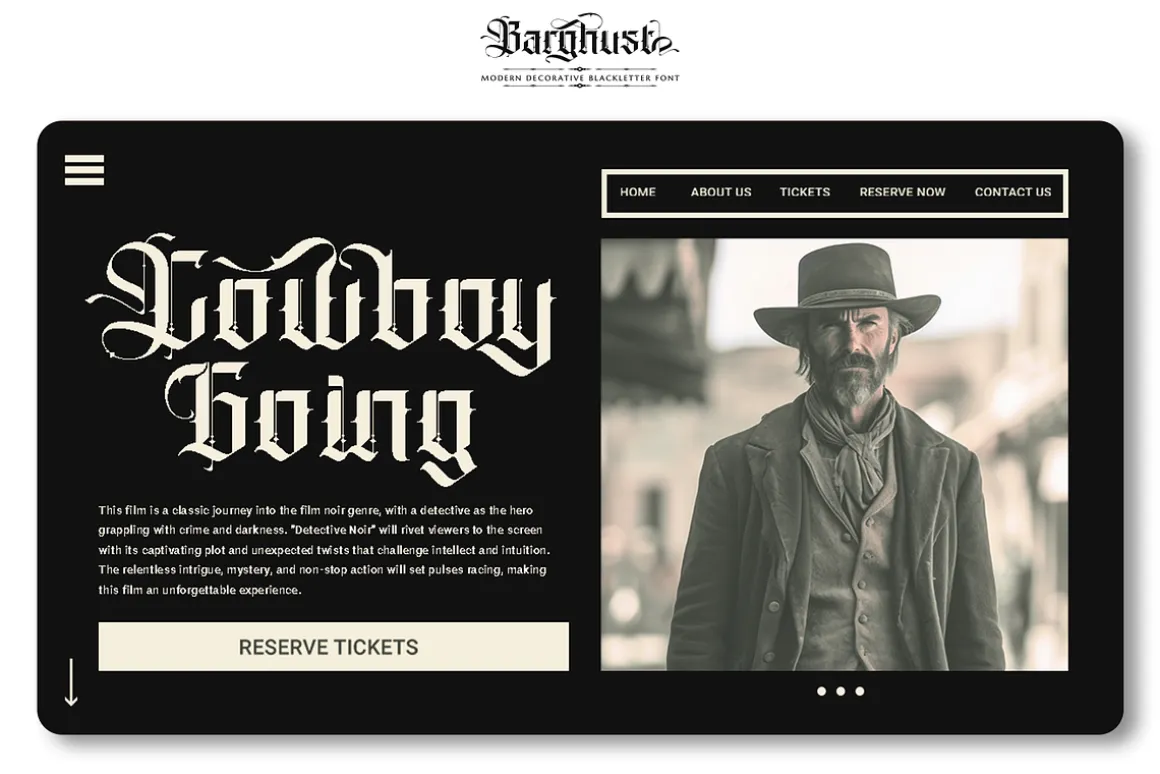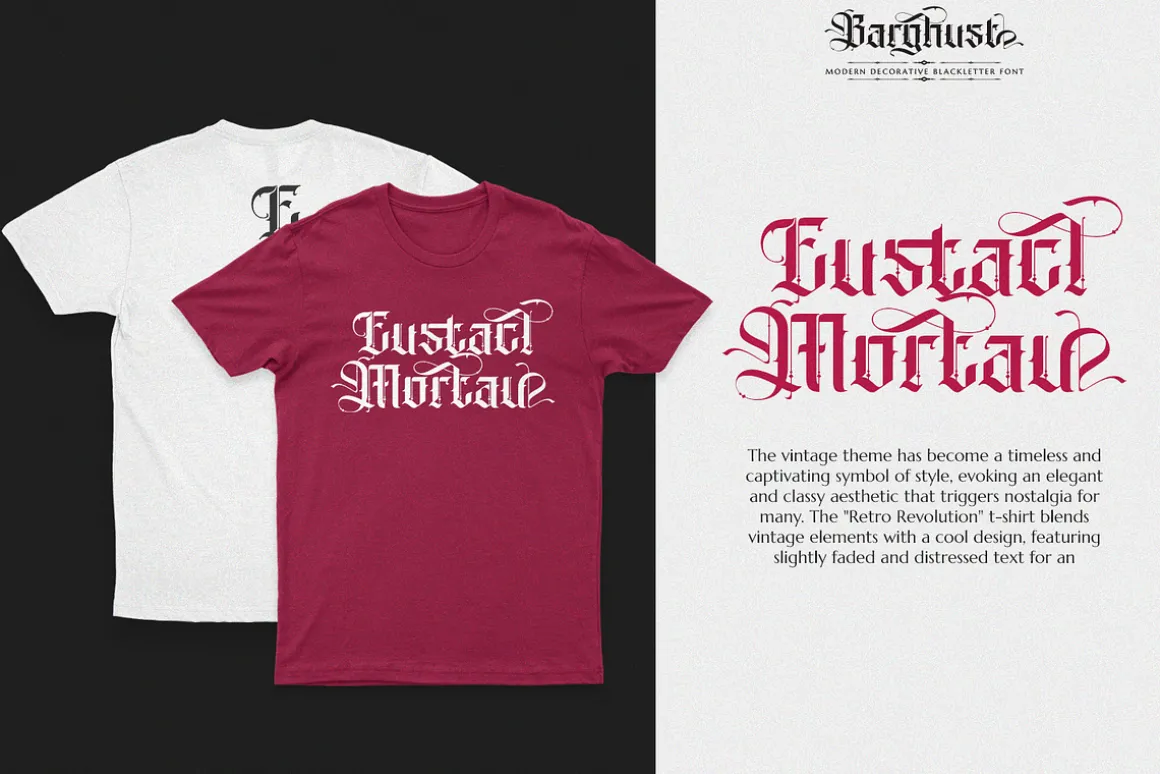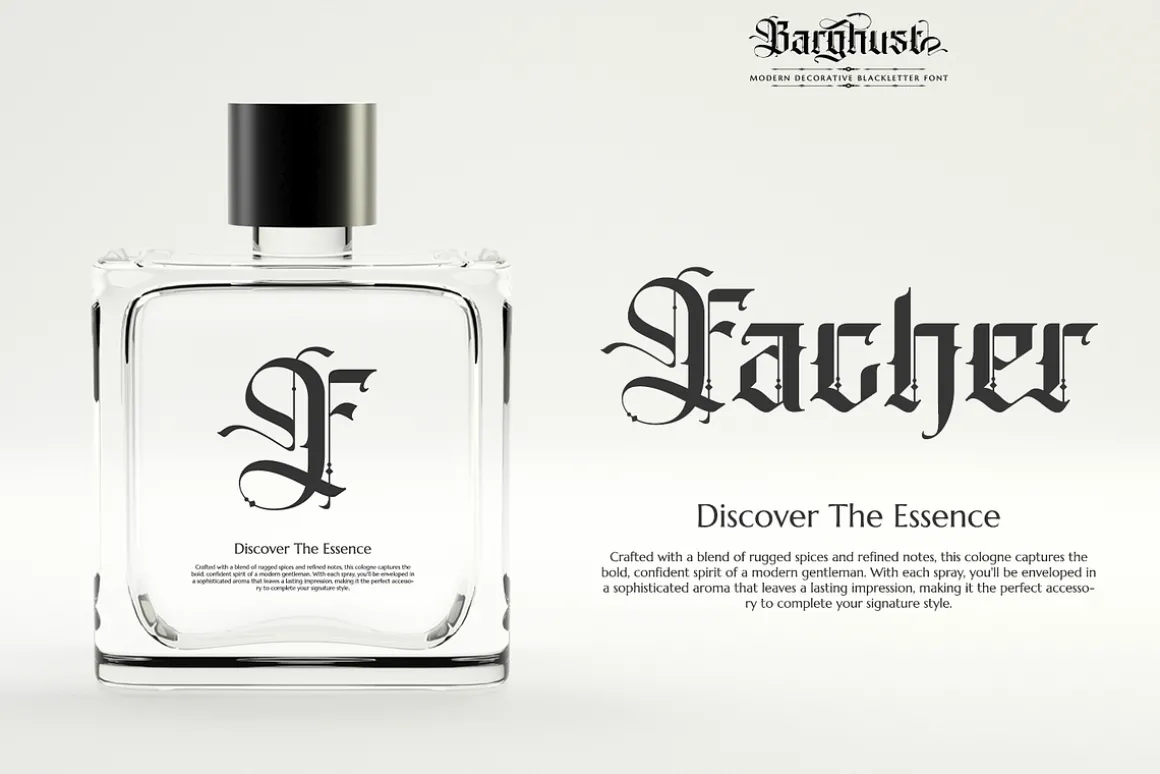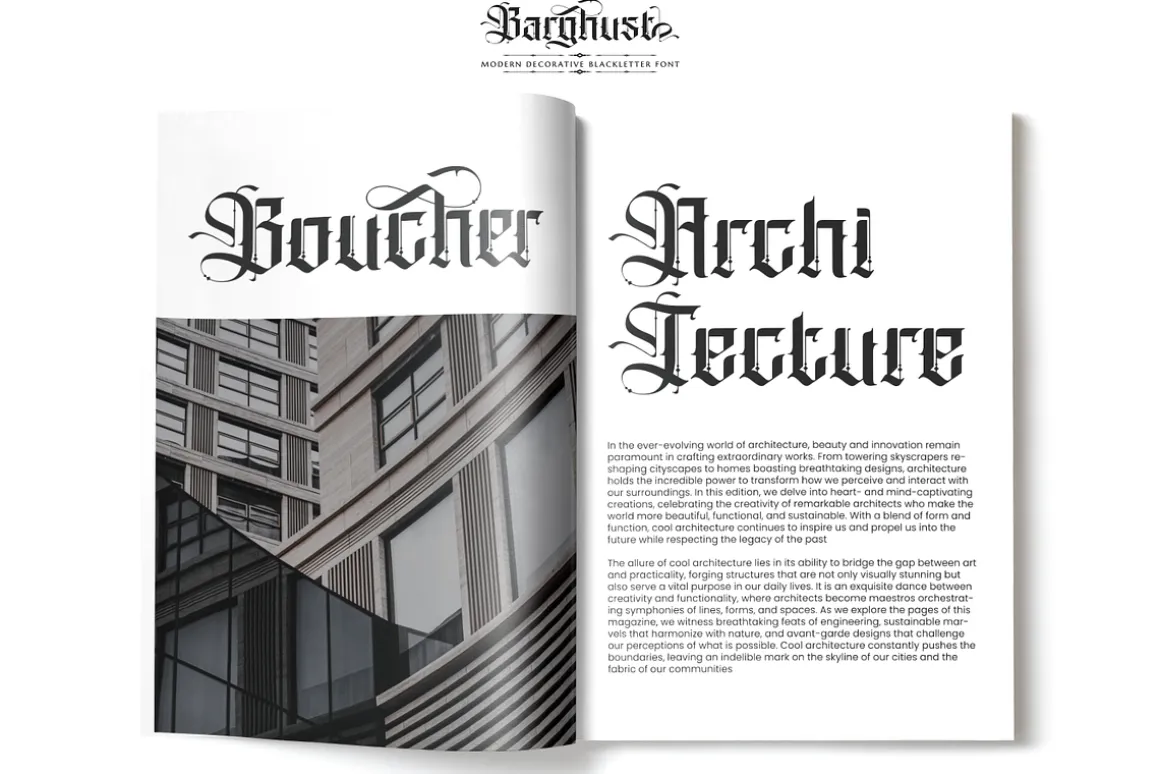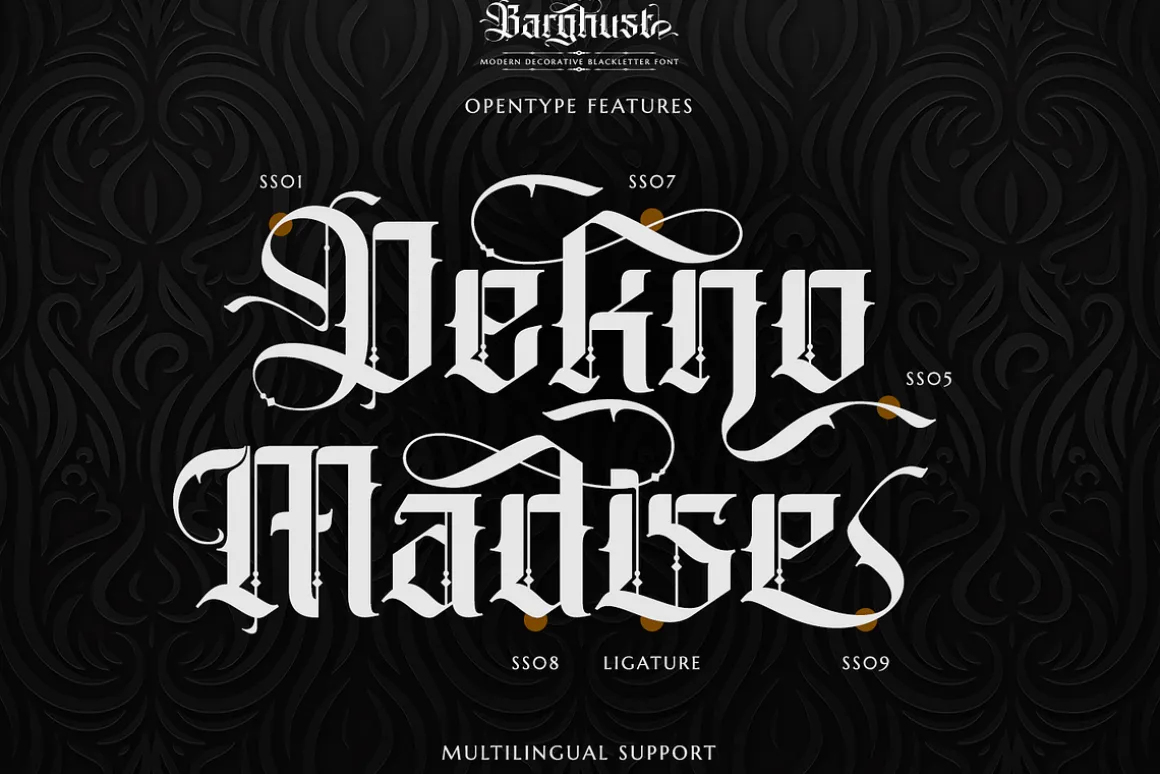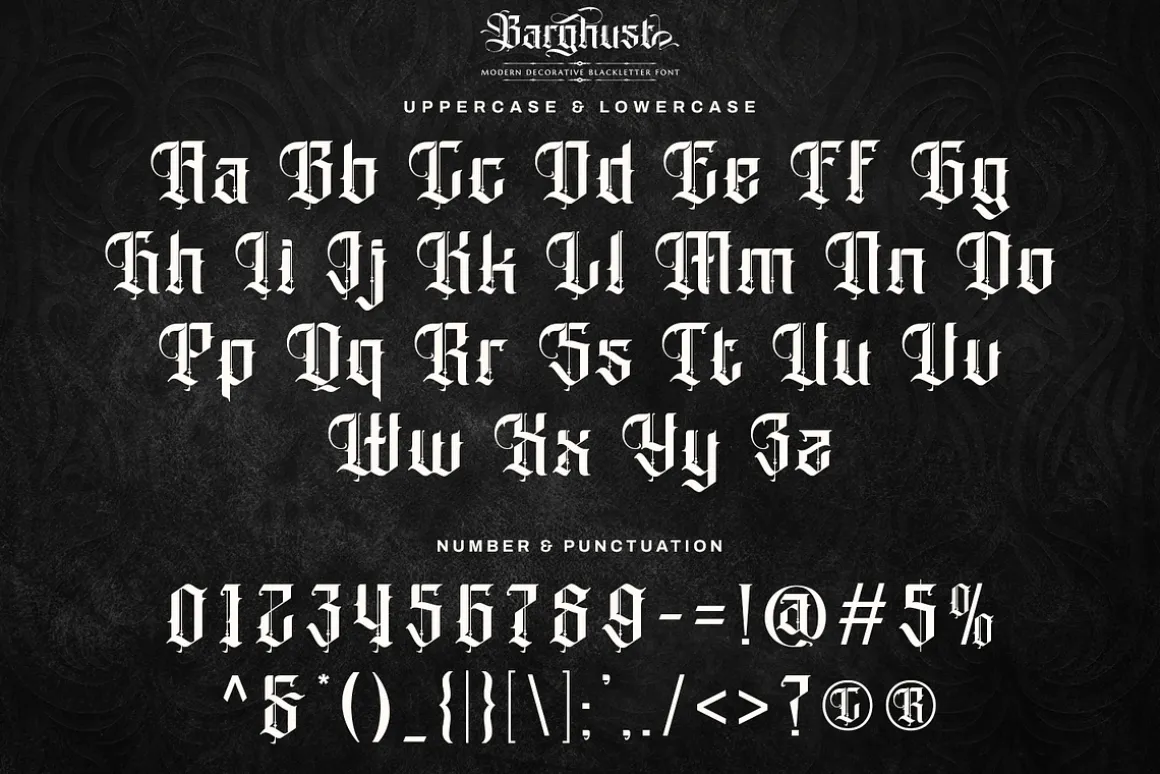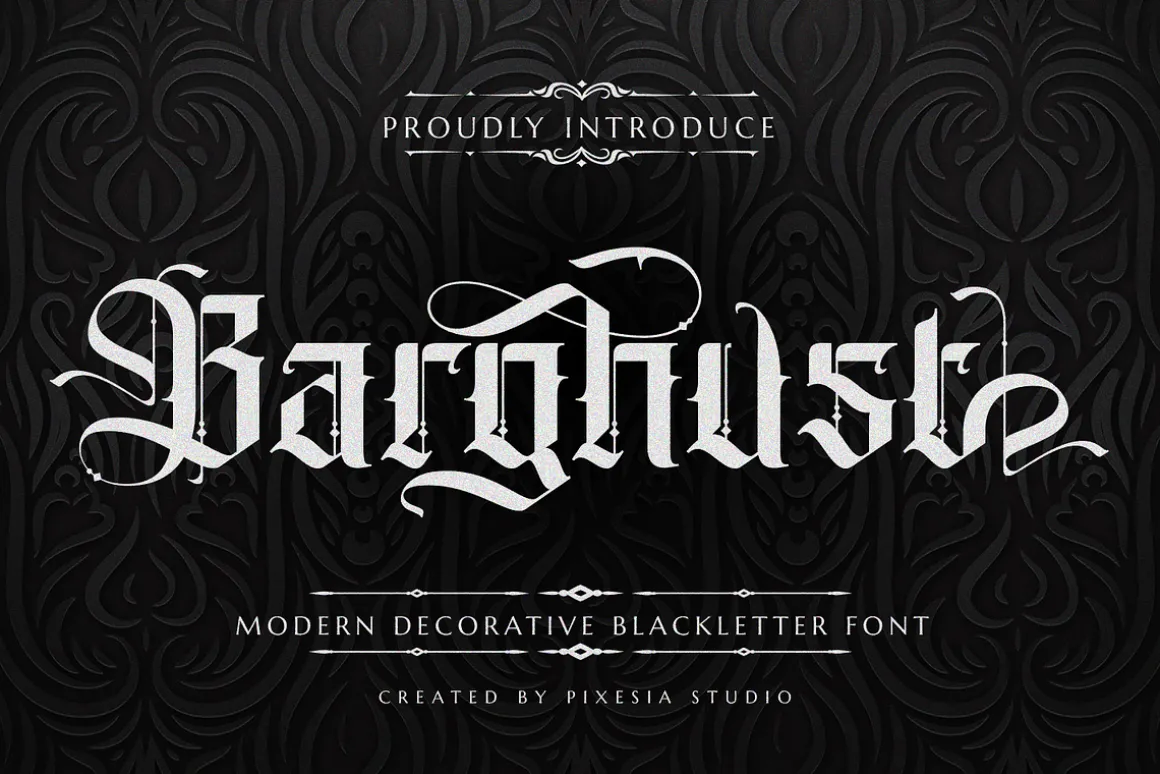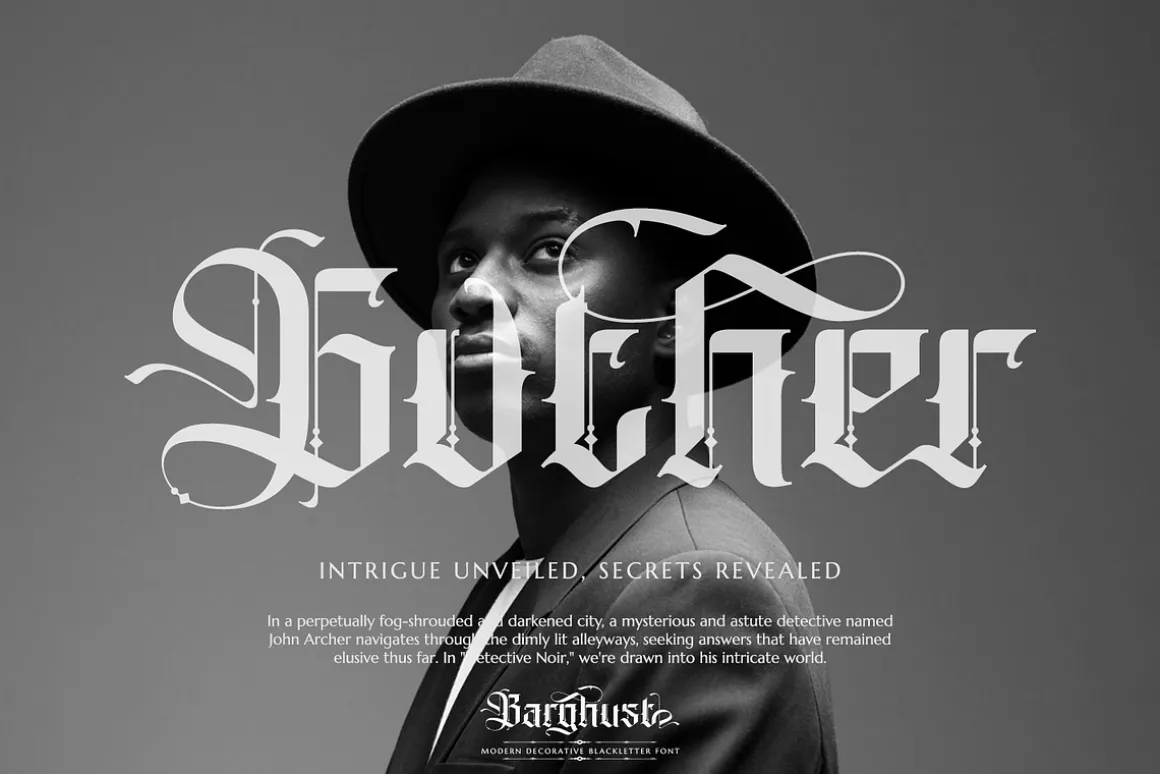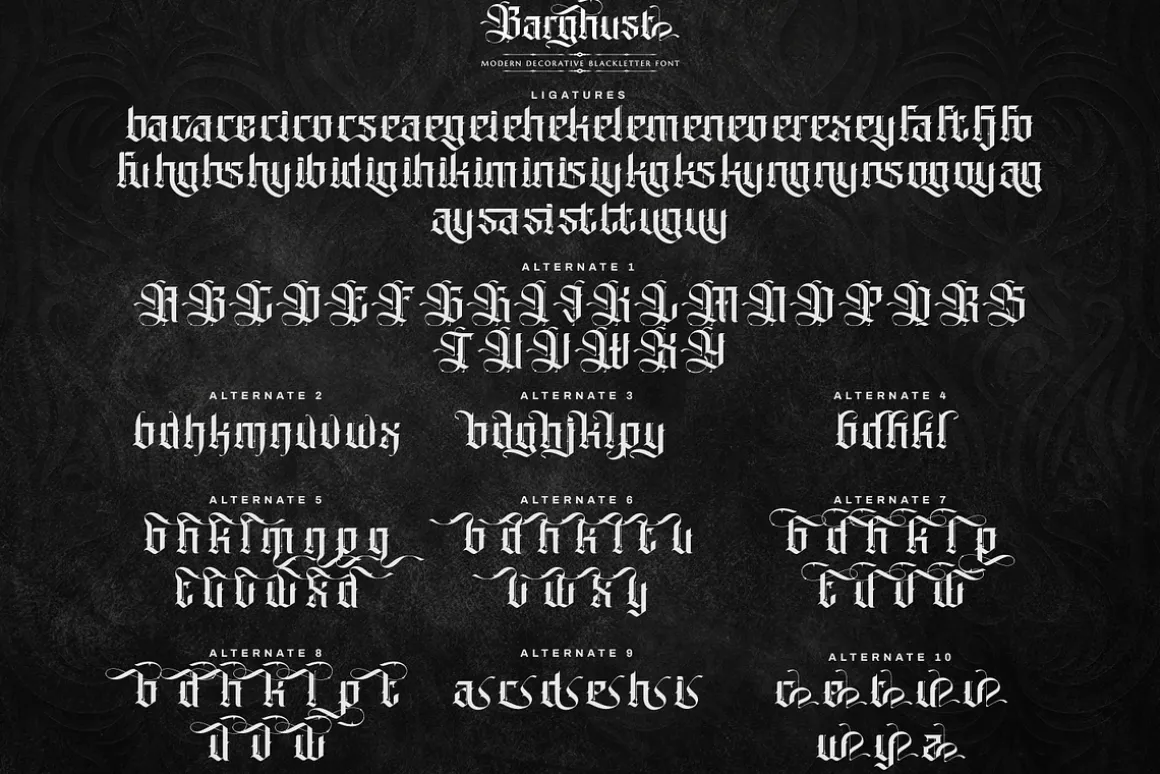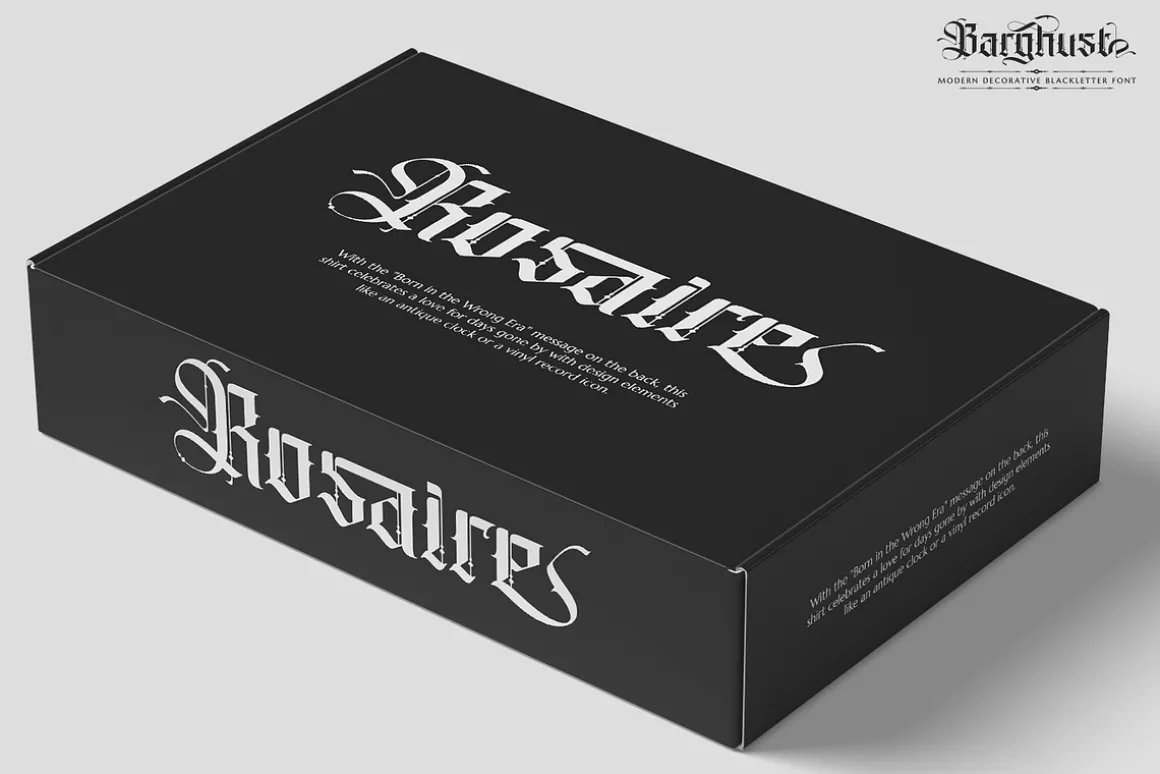
Introducing Barghust – Modern Decorative Blackletter Font
Barghust is a modern decorative blackletter font inspired by classic aesthetics, yet infused with a contemporary twist. With featuring ligatures and stylistic alternative characters, Barghust provides endless possibilities for creating designs with a bold and unique charm.
Barghust is perfectly suited for branding, logotype, social media posts, advertisement, product packaging, label, photography, watermark, t-shirt, website design, invitation, stationery and any projects seeking a touch of modern or aesthetic blackletter elegance.
FEATURES
- Stylistic Alternates
- Ligatures
- Uppercase and Lowercase letters
- Numbering and Punctuations
- Multilingual Support including Afrikaans, Albanian, Basque, Catalan, Danish, Dutch, English, Estonian, Faroese, Filipino, Finnish, French, Galician, German, Icelandic, Indonesian, Irish, Italian, Malay, Norwegian Bokmål, Portuguese, Spanish, Swahili, Swedish, and Zulu